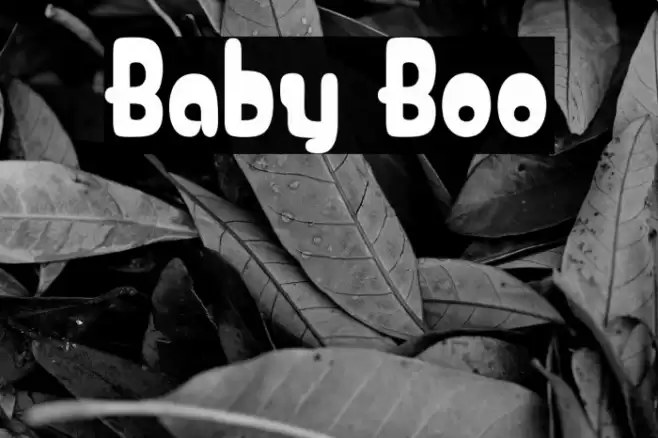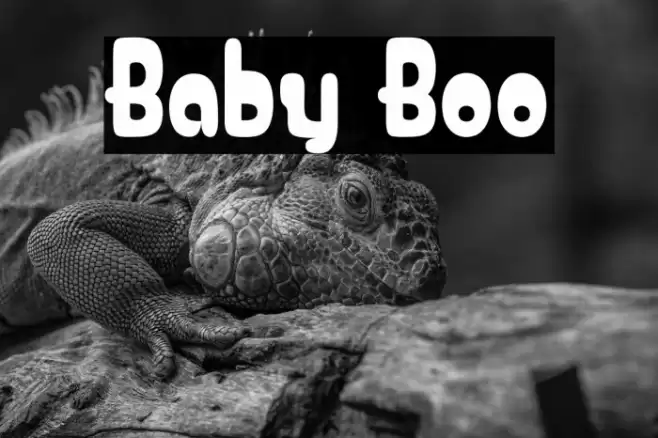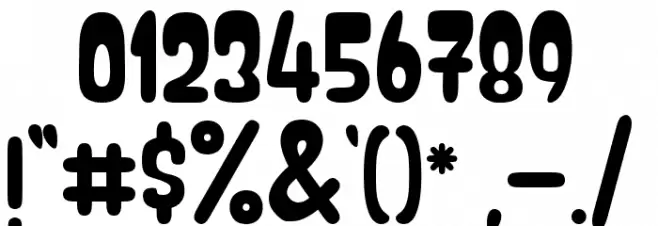
Baby Boo Font
Baby Boo Description
This playful and bold font features rounded, bubbly characters that exude a sense of fun and whimsy. The uppercase and lowercase letters maintain a consistent, thick stroke, creating a cohesive look across the alphabet. Numbers and special characters share the same playful style, making this font versatile for various creative projects. Its unique design is perfect for capturing attention and conveying a lighthearted tone. The font's boldness and rounded edges make it particularly suitable for children's materials, playful branding, and eye-catching headlines.
A bold, playful font with rounded, bubbly characters ideal for fun and whimsical designs from Regular fonts.
- Proposed Projects: Children's books, playful branding, party invitations, eye-catching headlines, and casual posters.
- Overall Style: Playful, Whimsical
- Use Case: Headlines, Logos, Children's materials